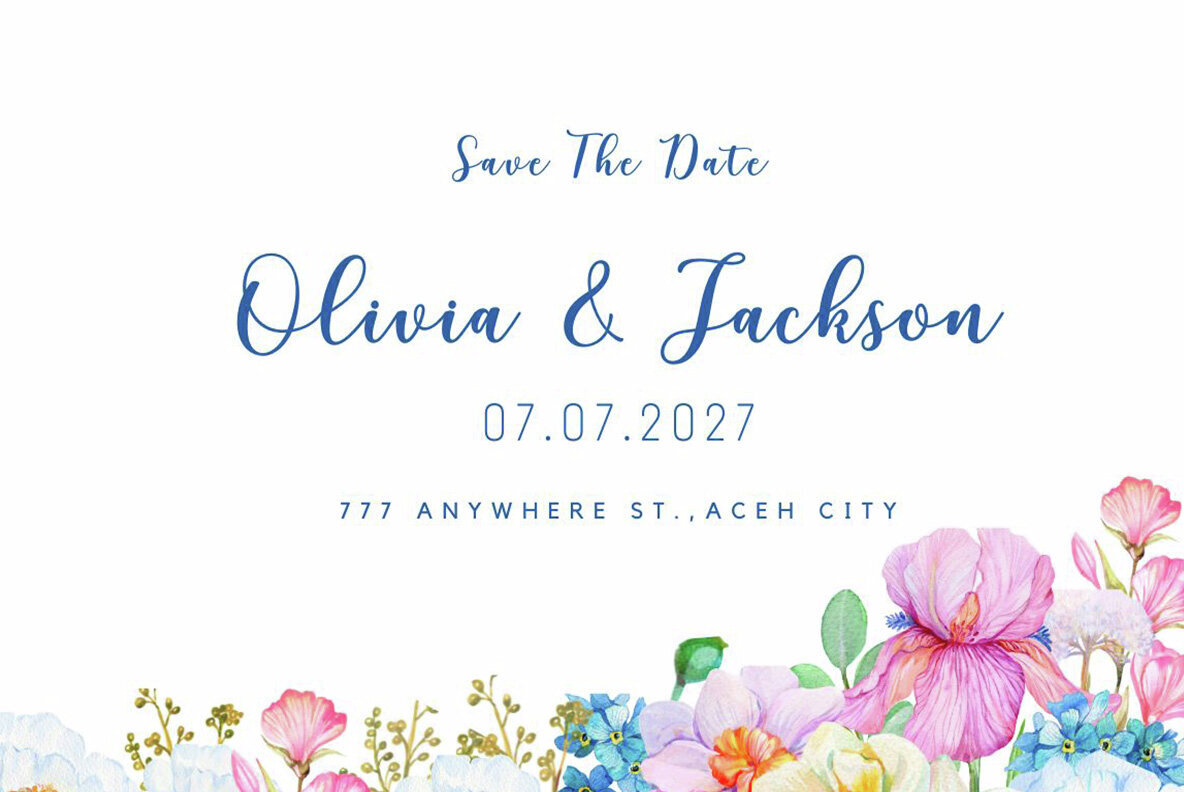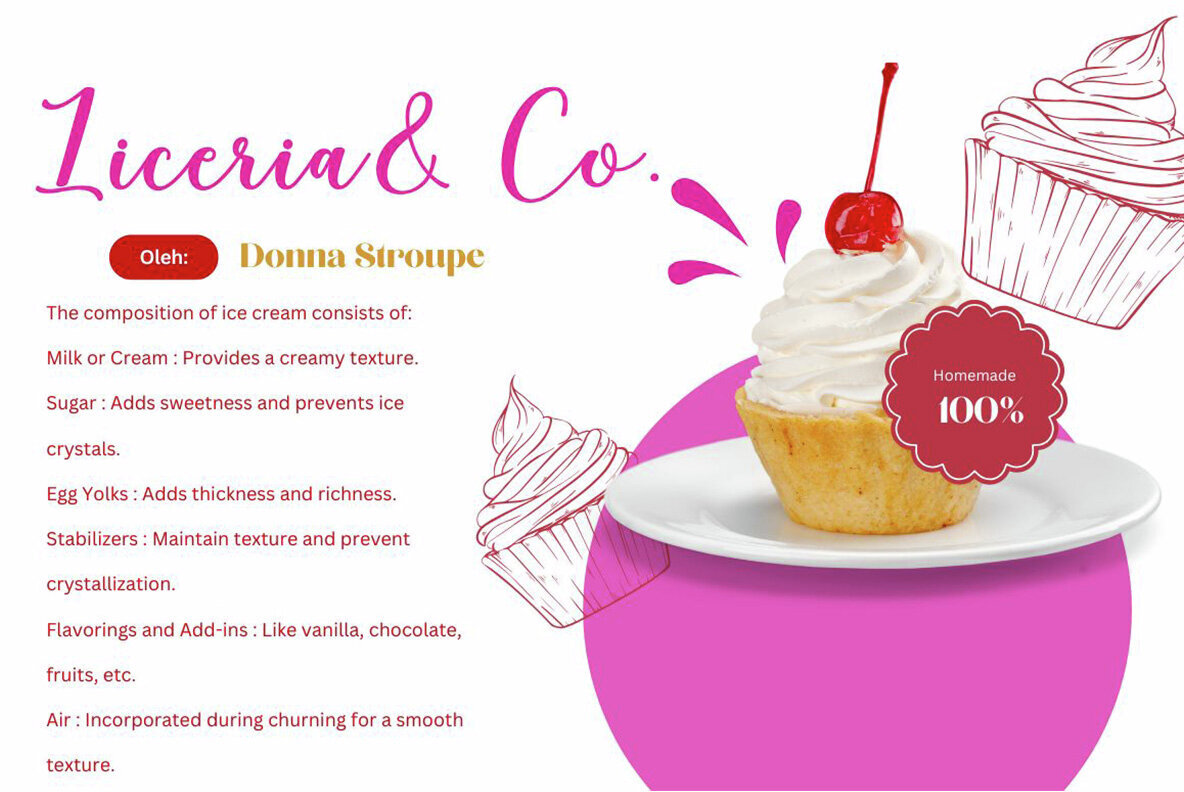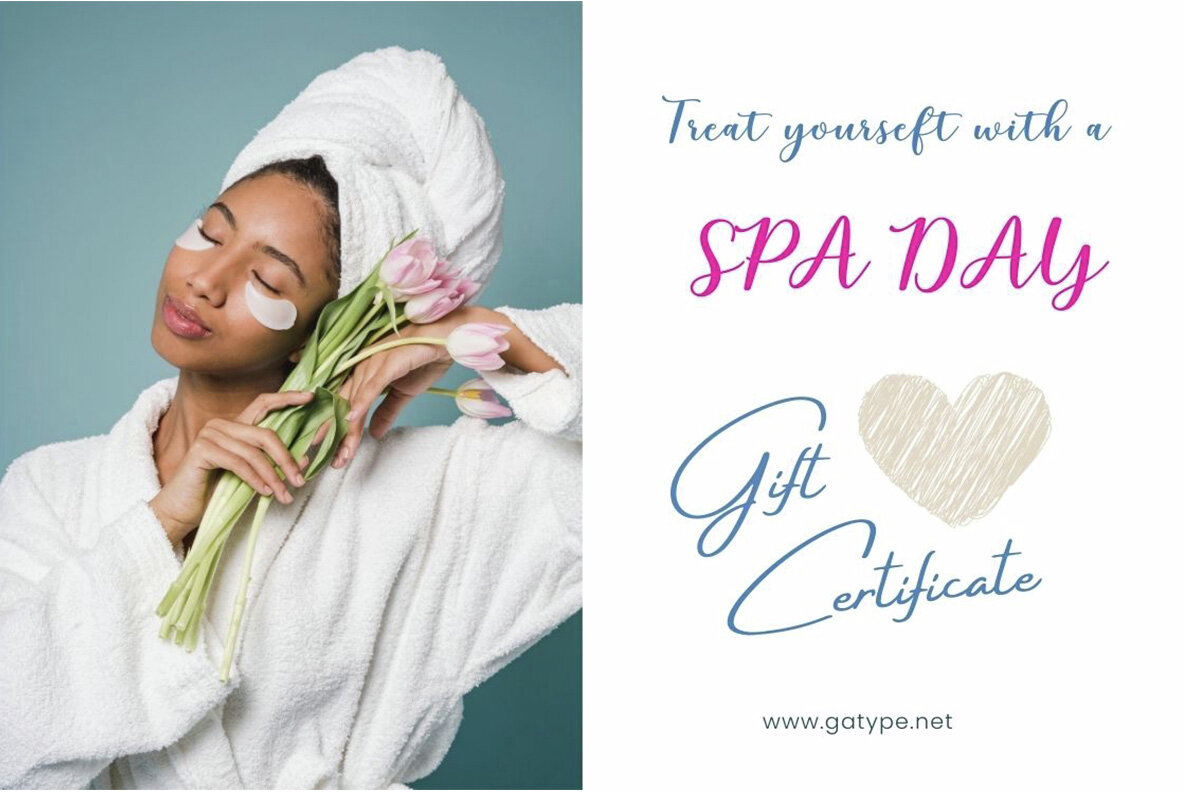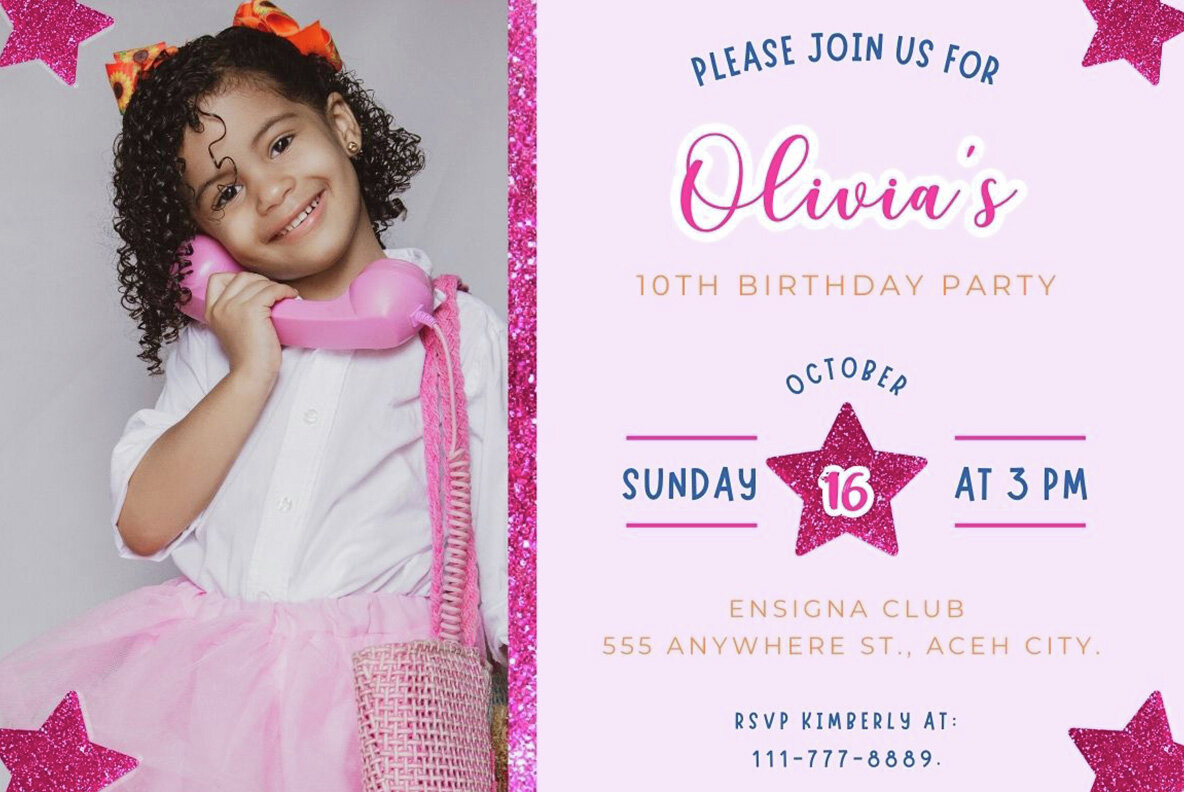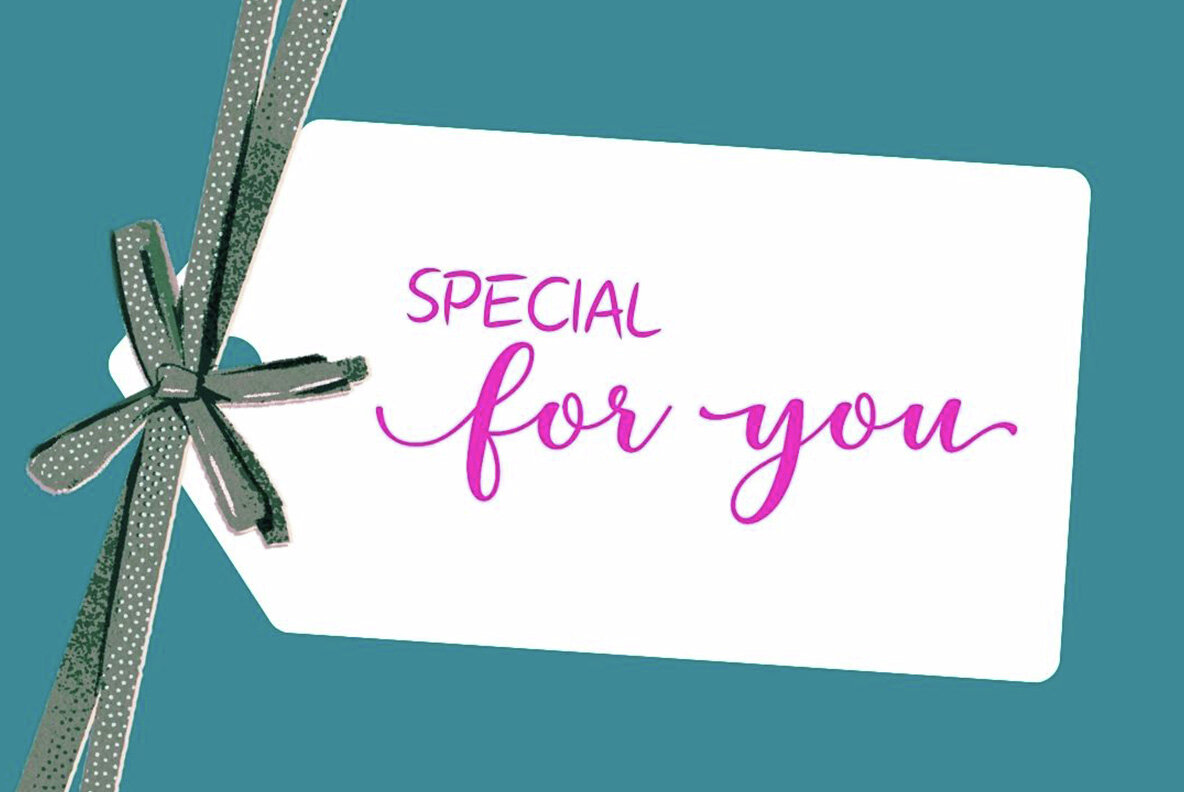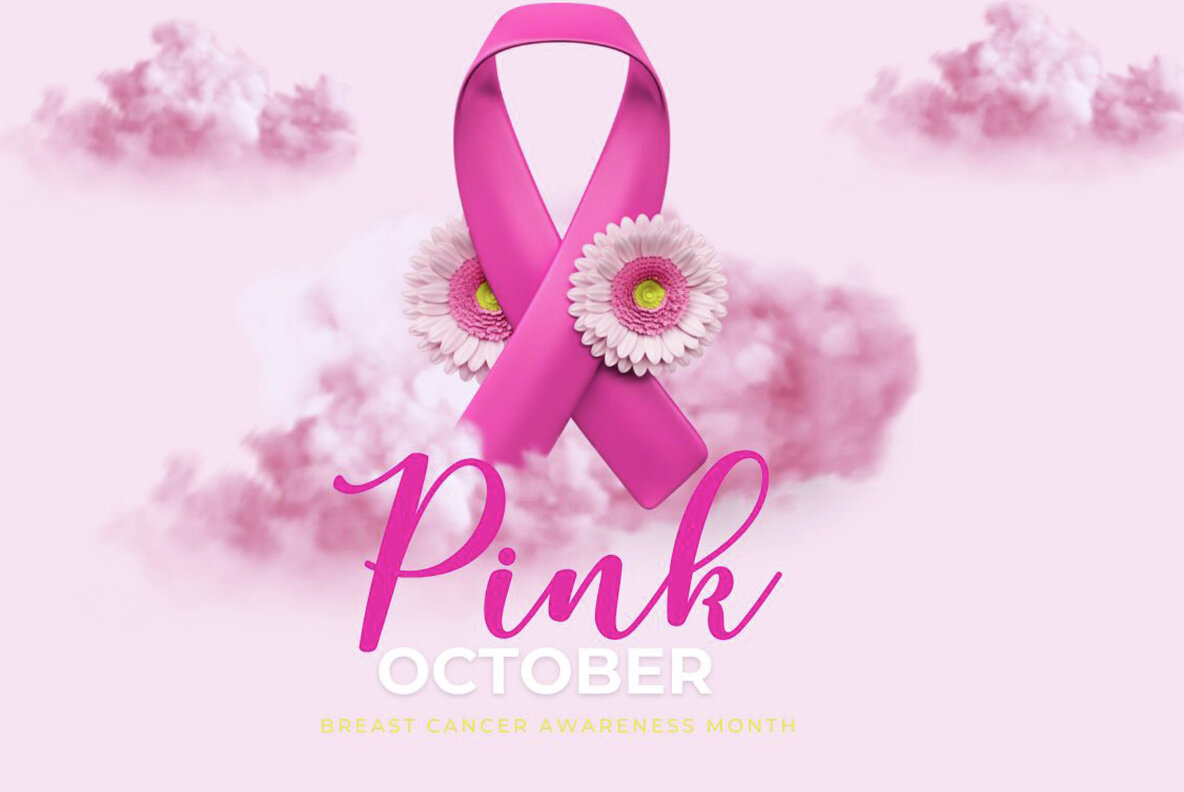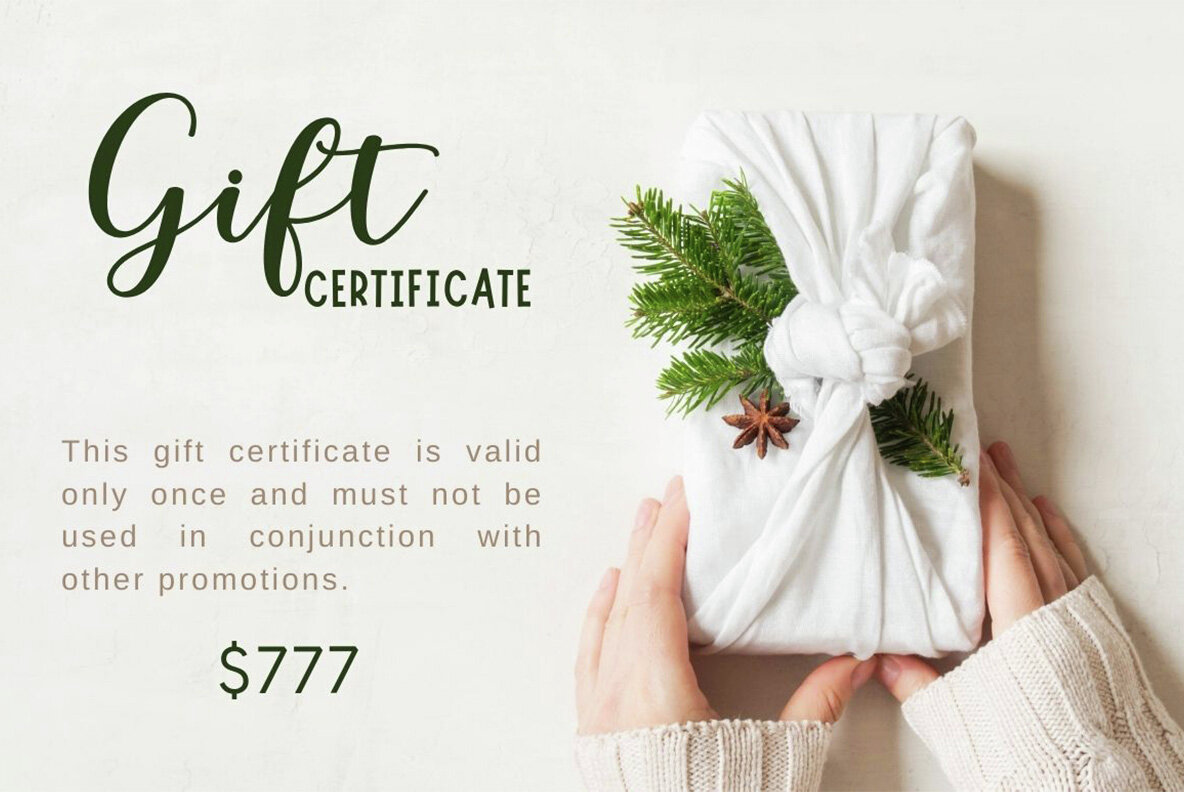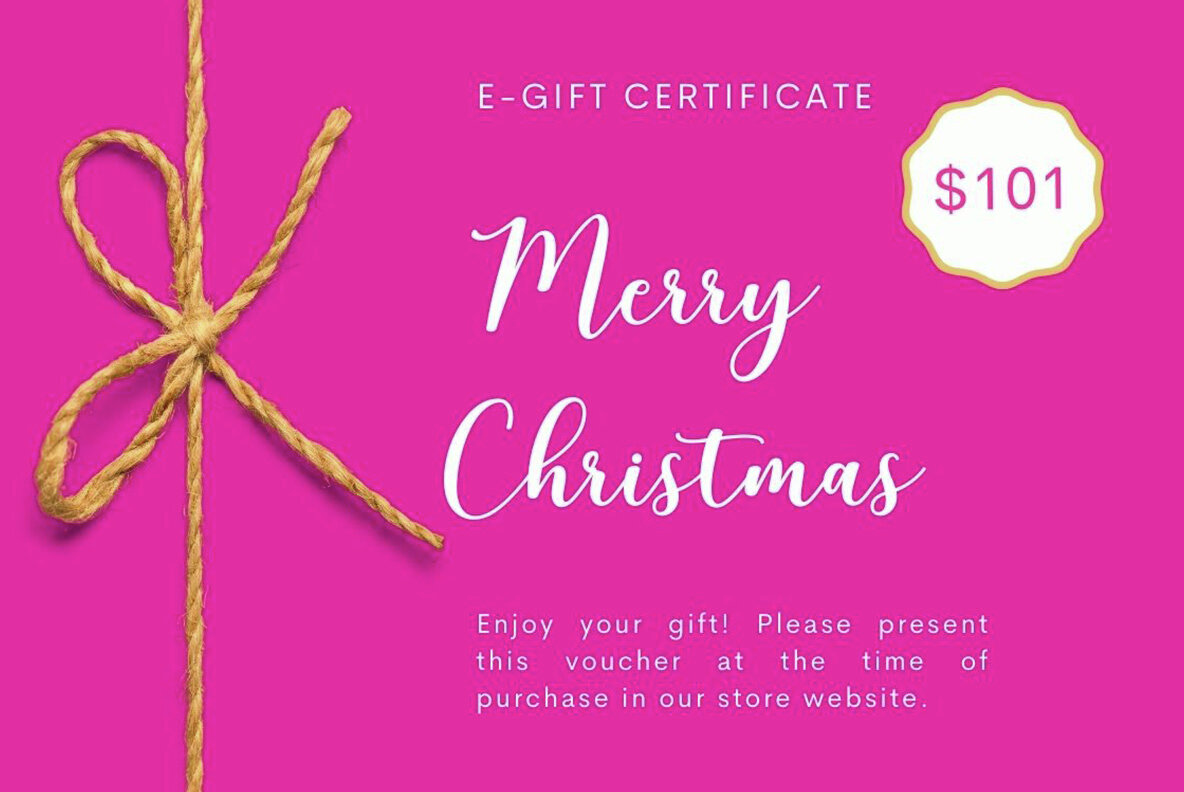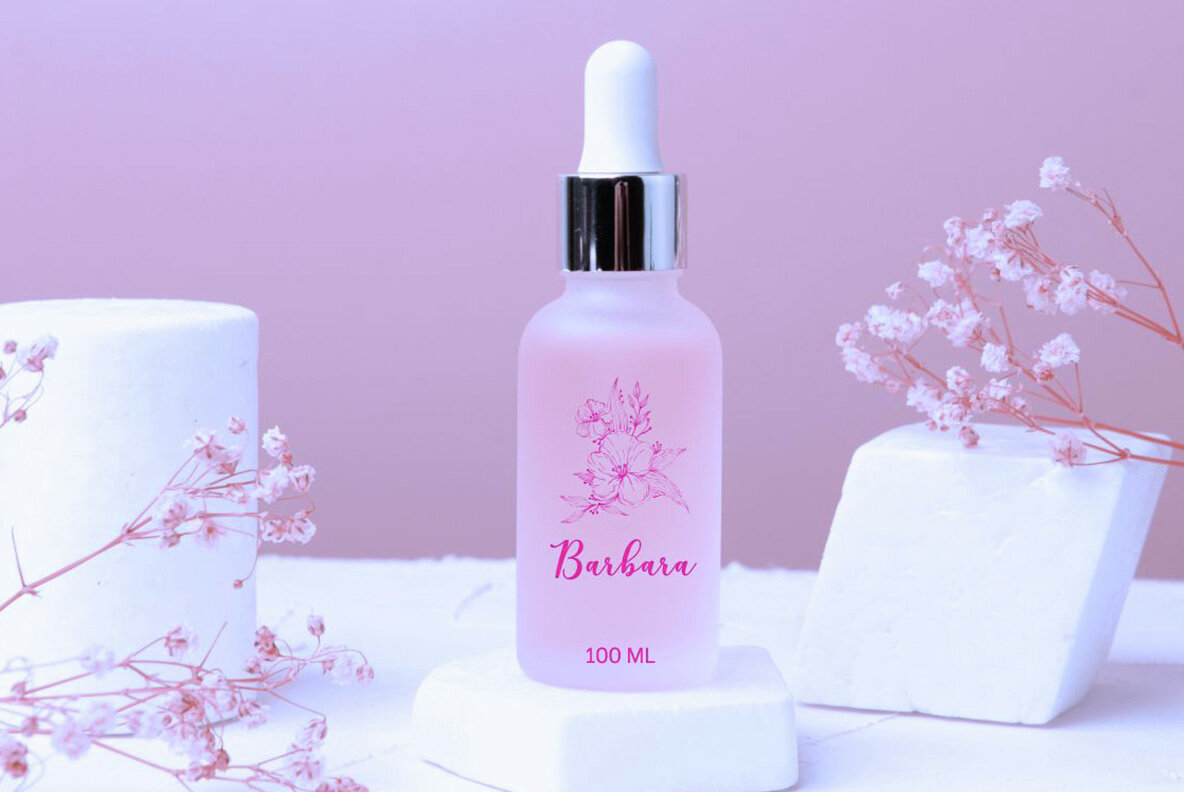
Hentak Font
Hentak Regular
The Hentak font is a distinct Script typeface characterized by its artistic, handwritten style and fluid, connected strokes. Featuring elegant letterforms, Hentak exudes a stylish, feminine, and slightly vintage appeal. Its thick yet flexible characters offer a personal and inviting aesthetic, ideal for wedding invitations, boutique logos, and branding elements. The font's warm and unique qualities make it a popular choice for designs aiming to convey an intimate and bespoke feel.
Hentak seamlessly blends modern sensibilities with classic calligraphic elements, providing an elegant look without excessive formality. Its dramatic curves and delicate ornamental details enhance its suitability for decorative elements and projects prioritizing artistic expression. Whether used in branding or personal projects, Hentak's versatility and distinctive style make it perfect for crafting eye-catching designs that stand out.